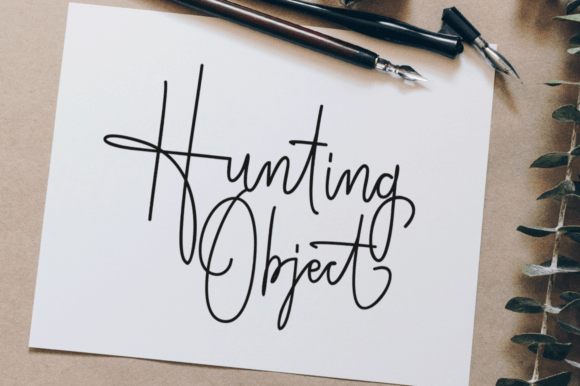
Introducing Hunting Object, a font family that captures the spirit of elegance and sophistication. Its intricate monoline strokes create a mesmerizing visual journey, inviting you to explore its captivating world of creativity.
Express your uniqueness with Hunting Object, the perfect font for Instagram edits. Each letter is a work of art, meticulously crafted to evoke a sense of timeless beauty. Your posts will radiate with grace and allure, making you stand out from the crowd.
Hunting Object empowers you to design invitations that are as unique as the moments they celebrate. Its flowing lines add a touch of charm and personality to your invitations, making them cherished keepsakes for years to come.
Elevate your signature style with Hunting Object Font. Its elegant script enhances your written words, adding a touch of refinement to your personal correspondence. Whether it's a heartfelt letter or an important document, your signature will leave a lasting impression.
Unleash your creativity with Hunting Object on your blog. Its versatile style effortlessly blends with any theme or design, allowing your content to shine. Each word will dance across the screen, capturing the attention of your readers and creating a captivating reading experience.
Make a statement with Hunting Object on social media. Its enchanting curves and intricate details will transform your posts into visual masterpieces. Your followers will be captivated by your content, eager to engage and share your captivating creations.
Hunting Object is the perfect choice for business cards and product brands. Its sophisticated style adds a touch of professionalism and elegance to your marketing materials. Create a lasting impression on potential clients and customers, leaving them with a sense of admiration and intrigue.
Immerse yourself in the world of Hunting Object, a font family that ignites the imagination and captivates the senses. Its monoline strokes and graceful curves will transform your creative projects, taking you on an extraordinary journey of self-expression.